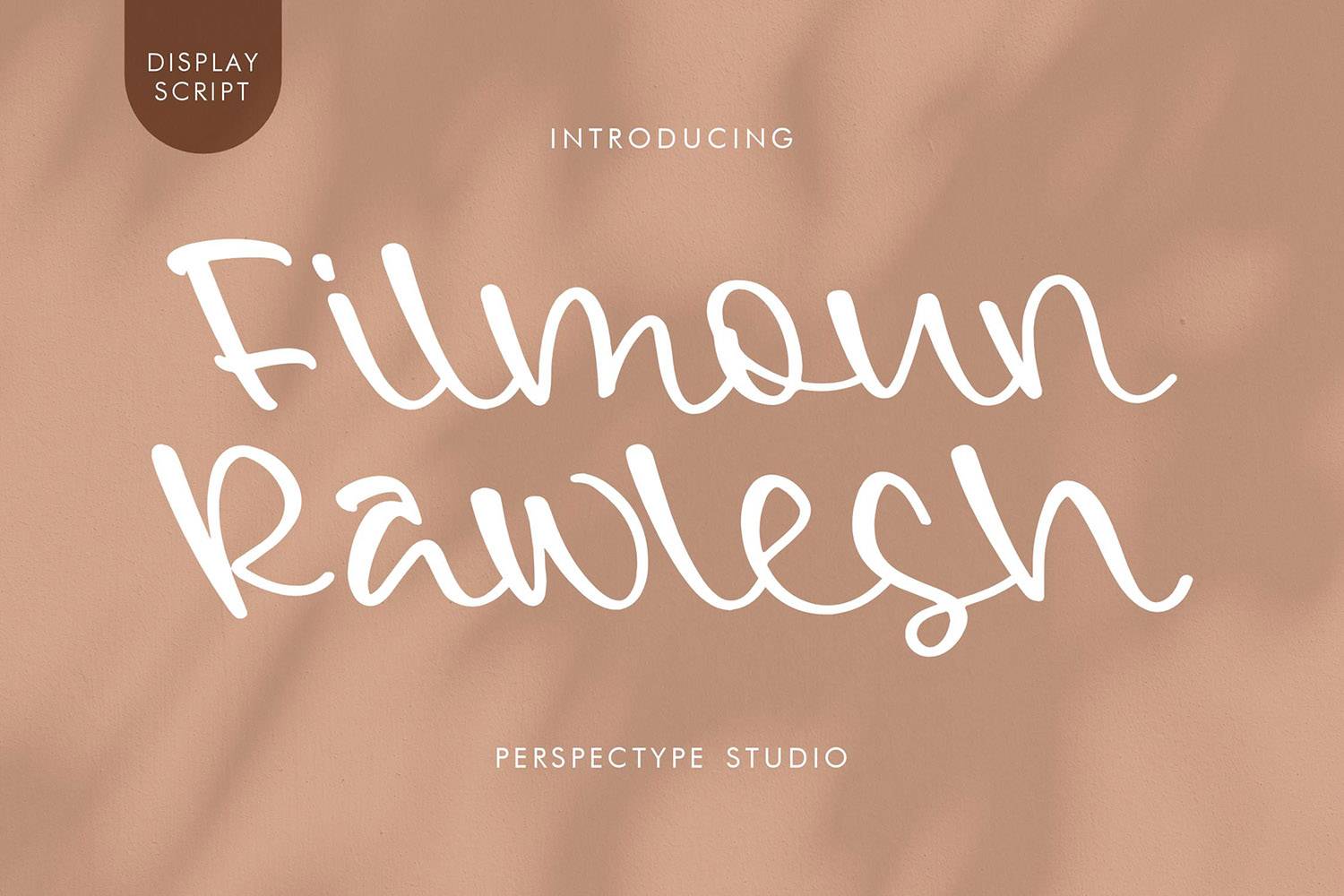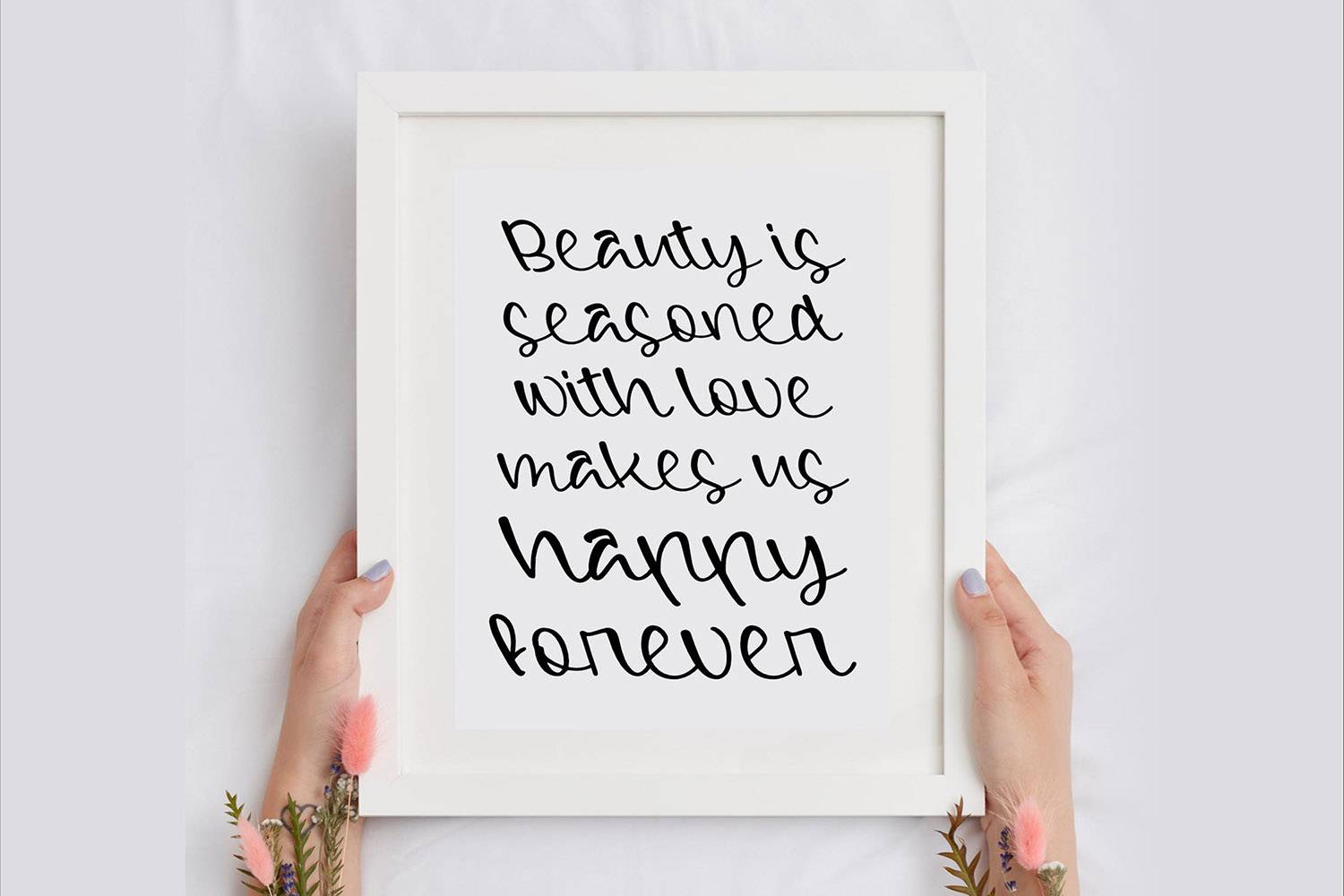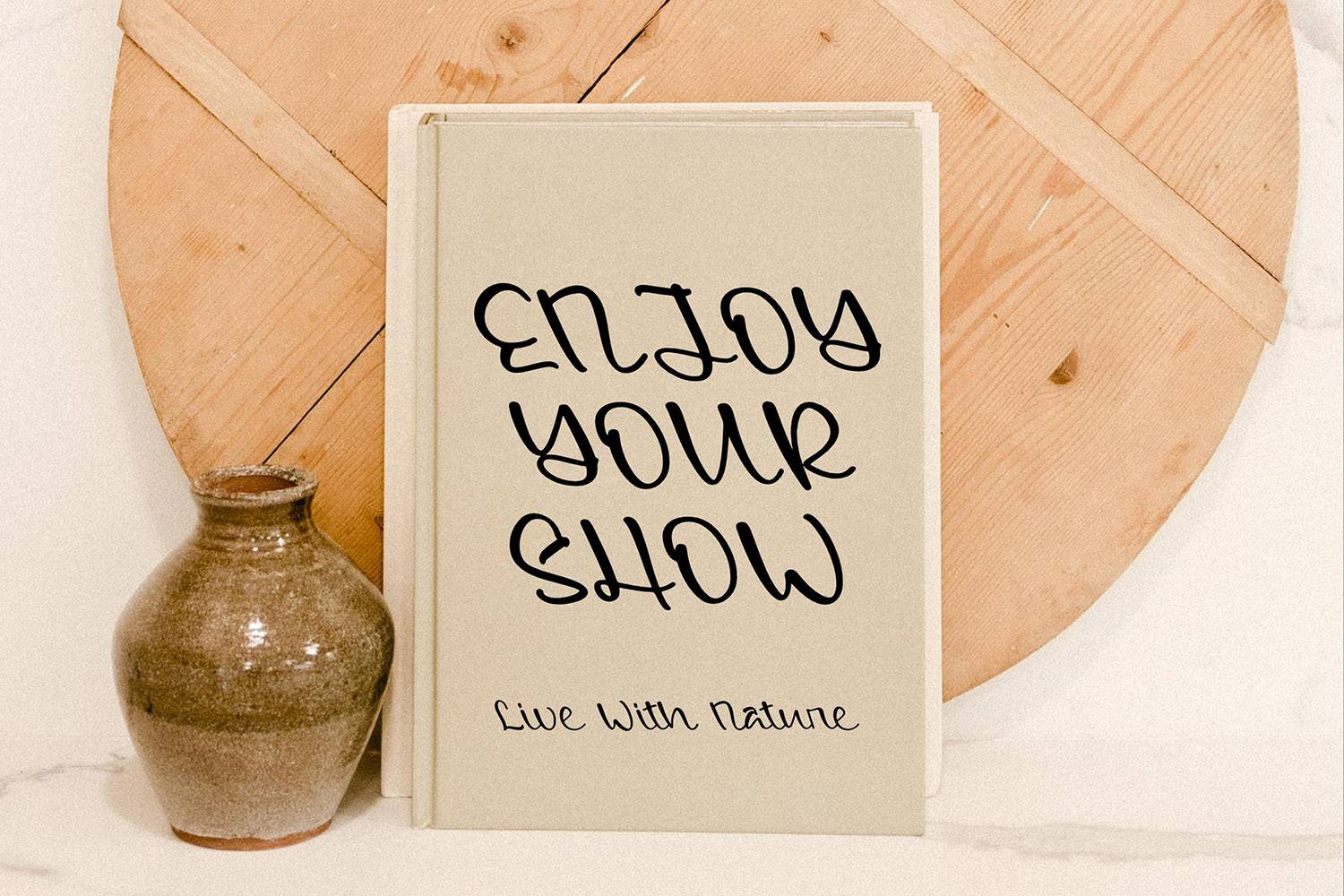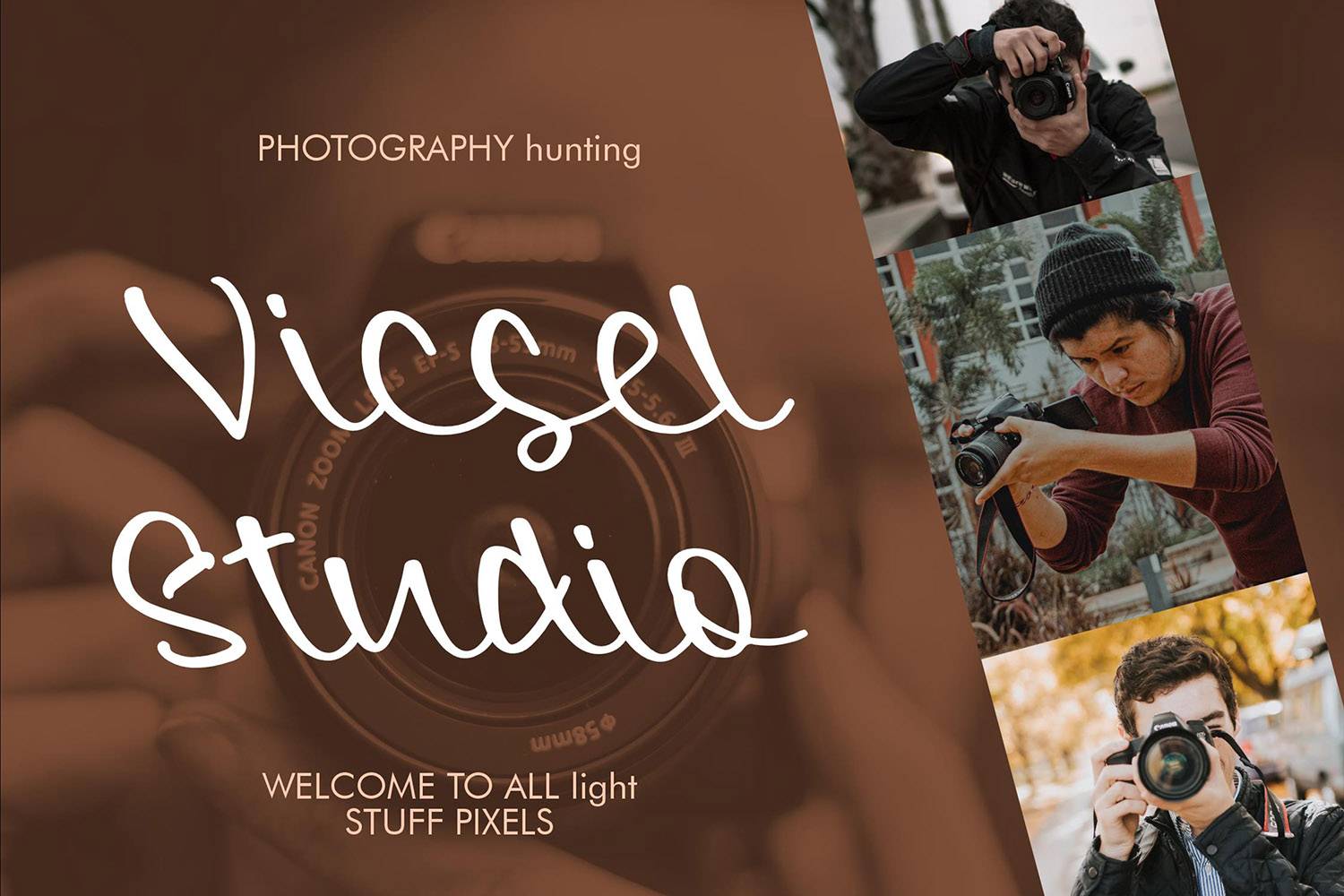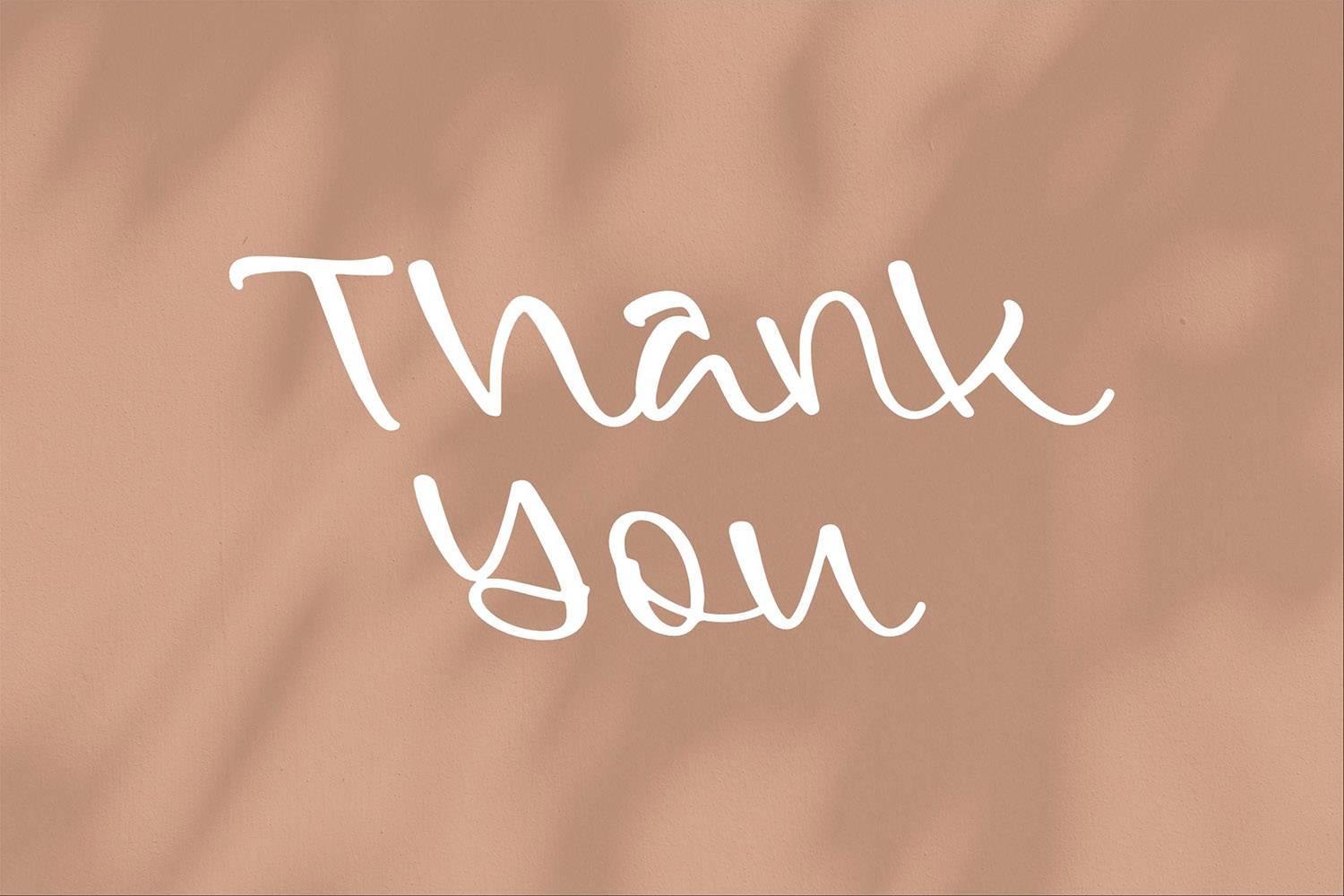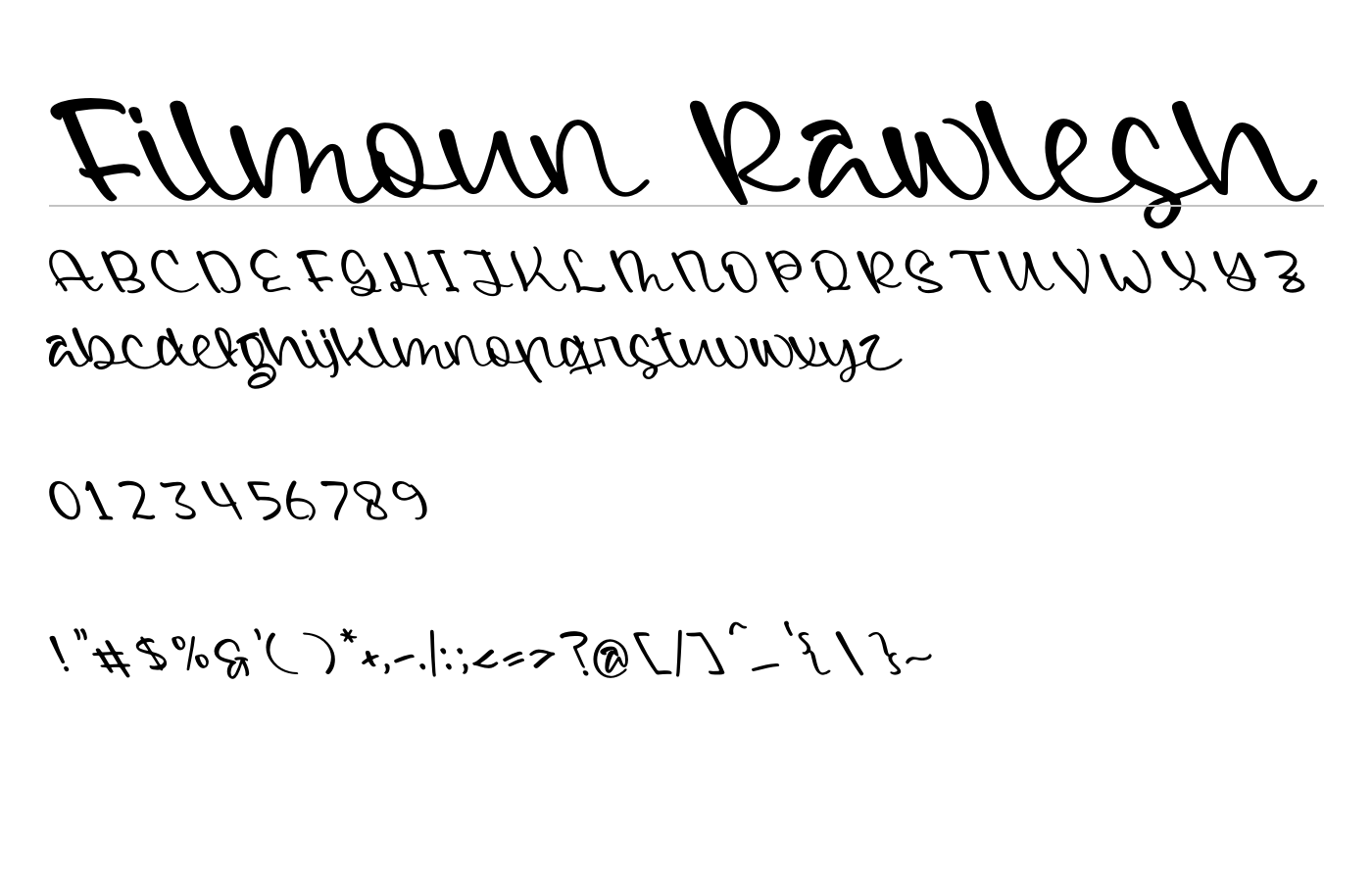
Filmoun Rawlesh is a playful, handwritten script font with a casual and quirky style, featuring uneven strokes and whimsical letterforms that create a friendly and informal feel. Its tall x-height and light stroke weight give it a lively and approachable appearance, making it perfect for creative projects, children’s designs, and branding that seeks a personal, handmade touch. This font works well in logos, invitations, and social media graphics where a unique and spirited voice is desired.
Filmoun Rawlesh Font
About Filmoun Rawlesh Font